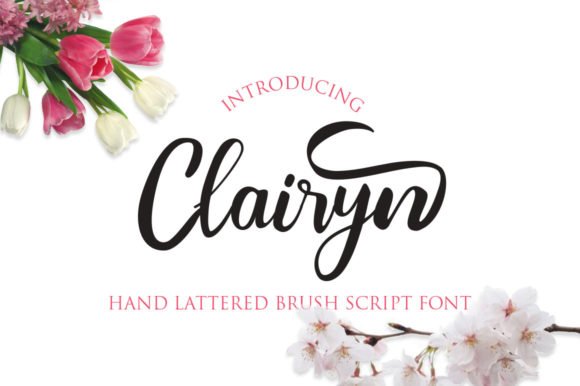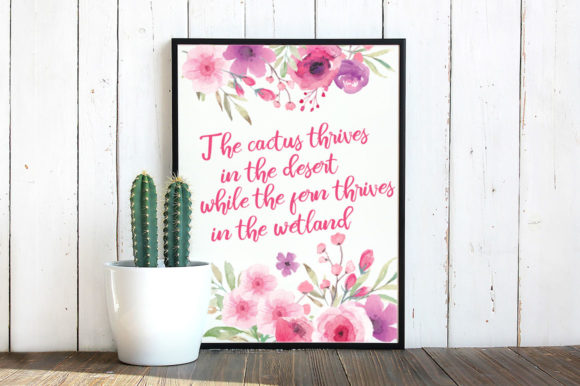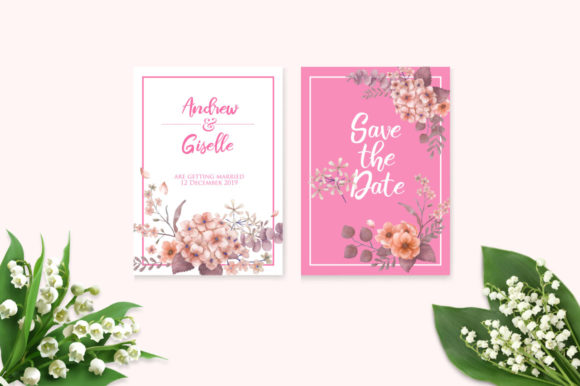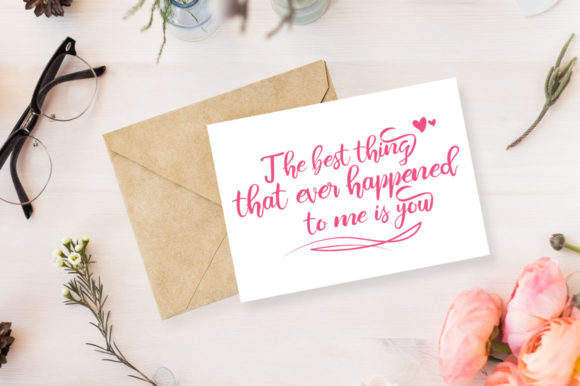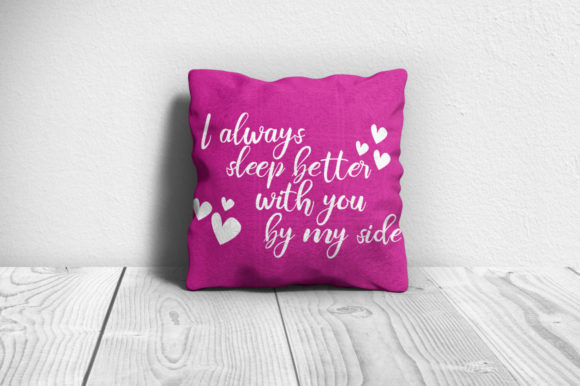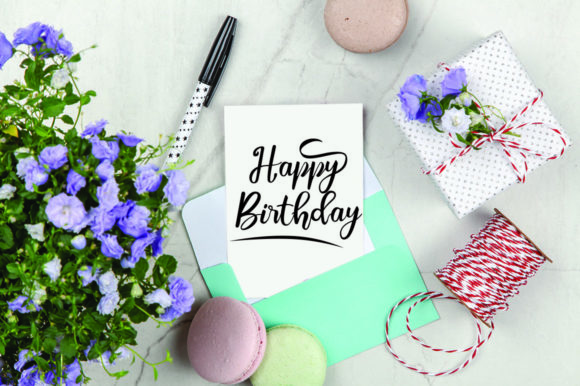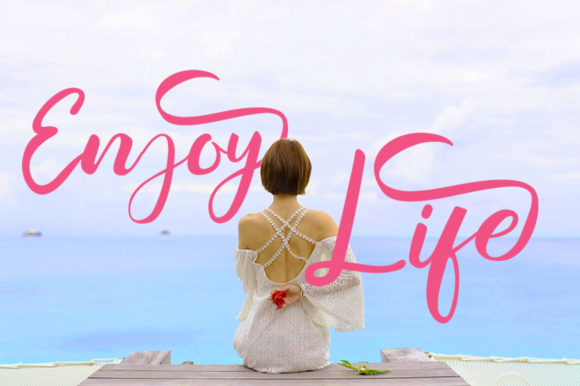
Discovering the Perfect Script: The Allure of Clairyn Font
Have you ever found yourself lost in the world of fonts, searching for that perfect script to add a touch of romance to your design? I know I have. It was during a late-night brainstorming session for a wedding invitation project that I stumbled upon Clairyn Font. As soon as I saw its elegant, cursive lines, I knew I had found something special.
Clairyn Font is an equally casual and lovely script that exudes a sense of authenticity. Designed to evoke a romantic feel, this font is perfect for designers looking to add a touch of whimsy and personality to their projects. Whether you’re working on a wedding invitation, a greeting card, or a blog post, Clairyn Font is sure to captivate your audience.
Clairyn Font Key Features
- Font Family: Clairyn Font
- Unique Characteristics:
- Highly legible and readable even at small font sizes
- Unique and elegant design
Designer Review: Clairyn Font
At first glance, I thought Clairyn Font was a unique addition to the world of fonts. ✨ Its elegant, cursive design seems perfect for wedding invitations, greeting cards, or any project that requires a touch of sophistication. The font’s fluid lines and subtle flair add a level of sophistication, making it a great choice for formal occasions.
However, upon closer inspection, I noticed a few limitations that might make it less versatile than I initially thought. ⚠️ Here are a few things to consider:
- Clairyn Font can be a bit too ornate, making it difficult to read in certain contexts. I found that it works best in larger font sizes or when used as a title font.
- The font’s complexity might also make it challenging to pair with other fonts, as its unique design can be quite dominant.
- Additionally, the font’s elegance comes at the cost of legibility. While it’s beautiful, it may not be the best choice for body text or any situation where readability is a top priority.
Overall, I think Clairyn Font is a beautiful addition to any designer’s toolkit, but it’s essential to use it thoughtfully and in the right context. With a bit of creativity and restraint, this font can elevate any project and add a touch of sophistication.
Tips for Getting the Most Out of Clairyn Font
Use Clairyn Font for titles, headings, and other display text to add a touch of elegance and sophistication to your designs.
Pair Clairyn Font with other elegant fonts for a harmonious and professional look.
Experiment with different font sizes and colors to create visual interest and emphasis.
Use Clairyn Font for:
Business cards and marketing materials
Any design project that requires a touch of elegance and sophistication
Alternatives to Clairyn Font for Designers
Lato is a clean and modern sans-serif font that works well for body text and headings. It has a wide range of weights and styles, making it suitable for various design projects. Use Lato when you need a clean and minimalist look. Compared to Clairyn Font, Lato is more versatile and has a wider range of weights.
Montserrat is a geometric sans-serif font that is perfect for titles and headings. It has a strong and modern feel that works well for urban and modern design projects. Use Montserrat when you need a bold and eye-catching font. Compared to Clairyn Font, Montserrat is more geometric and has a stronger feel.
Open Sans is a clean and modern sans-serif font that works well for body text and headings. It has a neutral and approachable feel that makes it suitable for various design projects. Use Open Sans when you need a clean and readable font. Compared to Clairyn Font, Open Sans is more neutral and has a wider range of weights.
Merriweather is a classic serif font that is perfect for body text and headings. It has a warm and elegant feel that works well for traditional and vintage design projects. Use Merriweather when you need a classic and sophisticated font. Compared to Clairyn Font, Merriweather is more traditional and has a warmer feel.